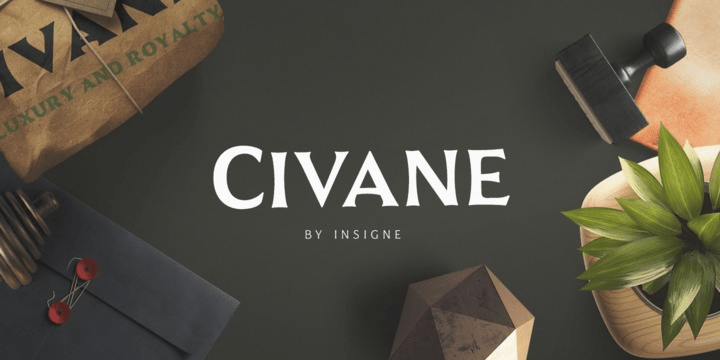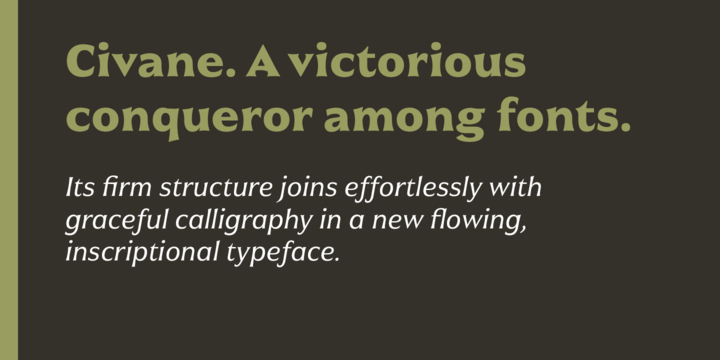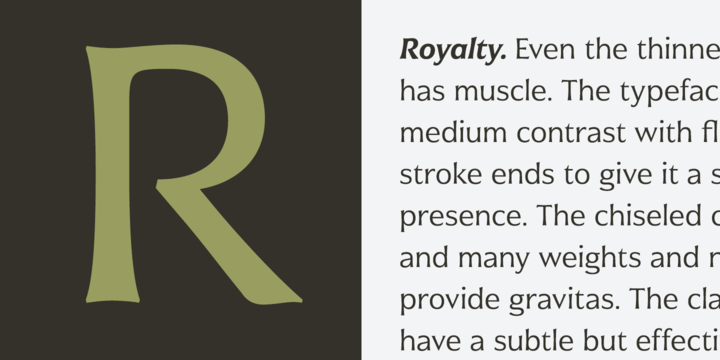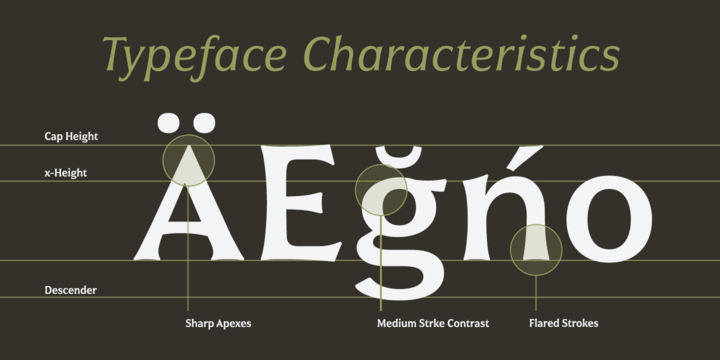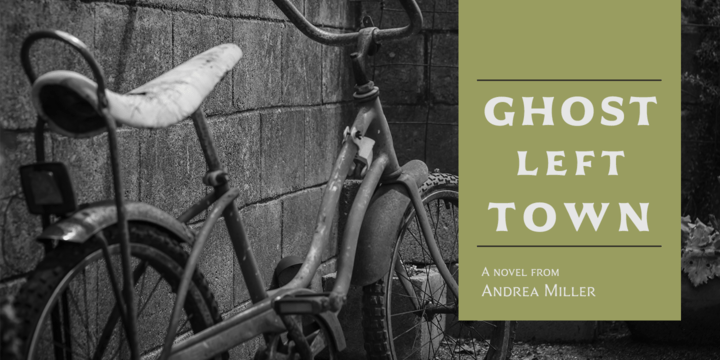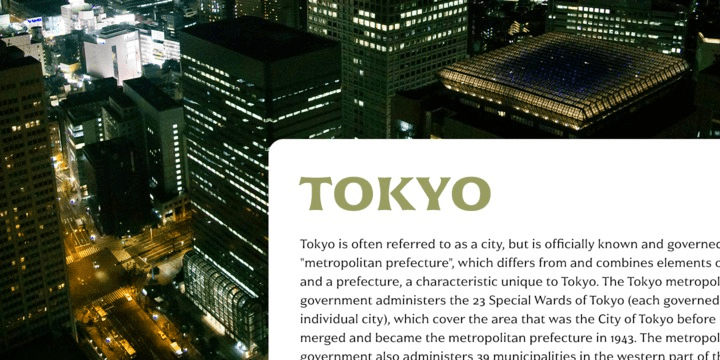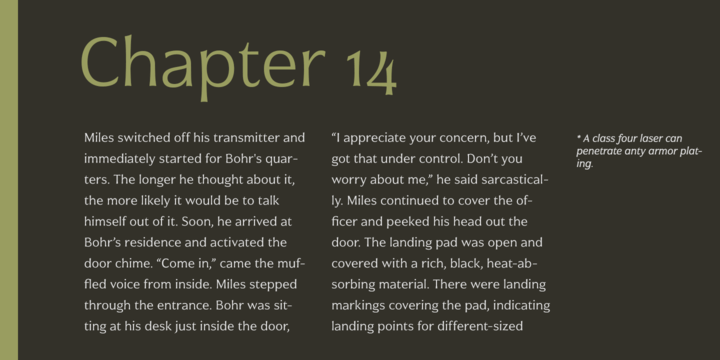
Civane
Civane is inspired by monuments of great civilizations, whose lofty inscriptions remain chiseled into the very stones and columns of their structures. The font's medium contrast with its flared stroke ends lead the reader to feel the solemn presence found in these great obelisks and shrines. Even Civane's thinnest weight holds a quiet power over its audience. Still, its classic lines provide a beautiful flow between the strong letters, allowing the reader's eye to move easily across the page.
Civane supports OpenType features and comes with upright italics, alternates, ligatures, old-fashioned figures, titling and small caps. Preview all these features in the interactive PDF manual. The font family has 48 fonts, with three widths and eight weights. The font family also includes glyphs for 72 languages; over 550 glyphs per font stand ready for you to command throughout your design.